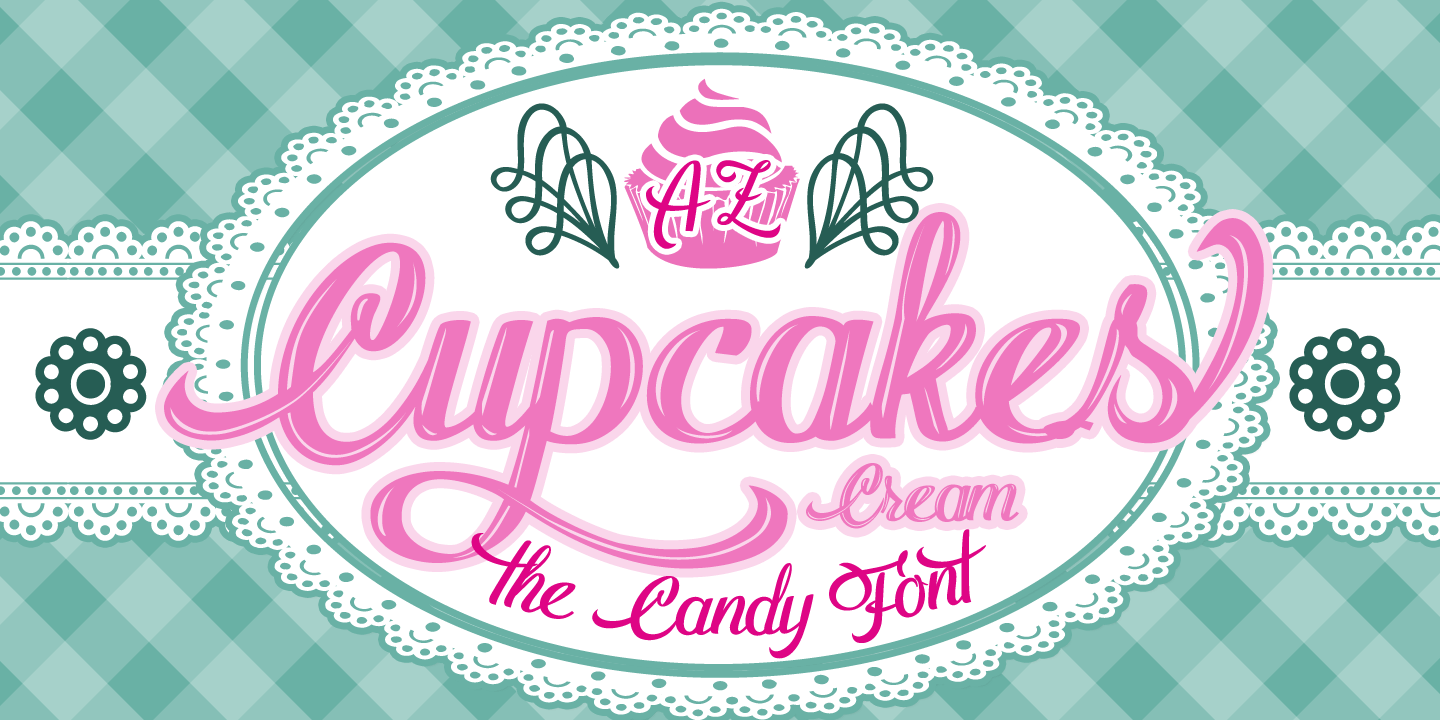
AZ Cupcakes Font is perfect for bakery branding, sweet treat packaging, confectionery shop signage, dessert menu designs, birthday party invitations, cupcake business logos, candy store marketing, and delightful baking blog graphics.
This font is exciting because it captures the irresistible sweetness of freshly baked cupcakes with playful charm and delicious appeal. AZ Cupcakes Font features adorable, rounded letterforms with frosting-inspired curves that evoke the joy of homemade baking, making it ideal for projects that need to convey warmth, sweetness, and mouth-watering delight.
The AZ Cupcakes Font family includes regular, bold, light, and decorative variants, along with sweet alternates and bakery-inspired ligatures that enhance its delicious character. Each weight maintains the font's delightful aesthetic while providing different levels of sweet expression for various bakery and confectionery design applications.
Whether you're developing charming bakery brands, creating tempting dessert materials, or designing sweet celebration campaigns, AZ Cupcakes Font Free Download delivers exceptional sweetness and bakery appeal. Its distinctive delicious style makes it an excellent choice for designers seeking to add homemade warmth and irresistible charm to their projects. The font's versatility extends from cupcake packaging design to bakery storefront signage, ensuring consistent performance across all sweet applications. With its lovingly crafted letterforms and bakery proportions, this typeface provides professional results that make mouths water and establish delightful brand presence with its unmistakable cupcake character and sweet homemade appeal.